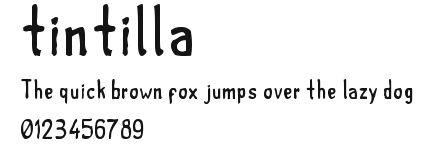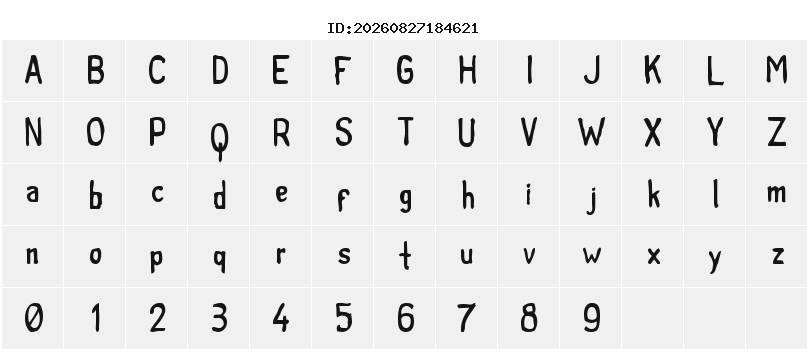
tintilla Preview
• Font Name: tintilla
About tintilla.ttf
tintilla.ttf is a modern, elegant sans-serif font designed for ultimate readability and visual harmony. Perfect for branding, headlines, web design, and print materials.